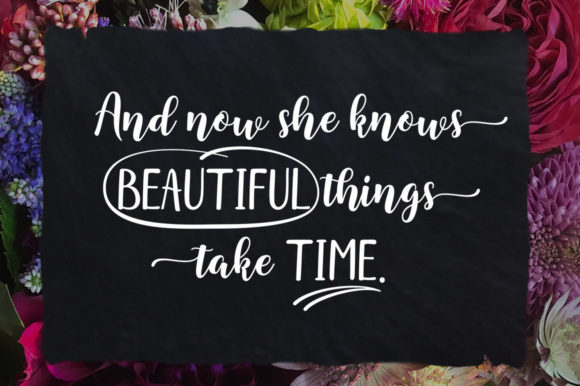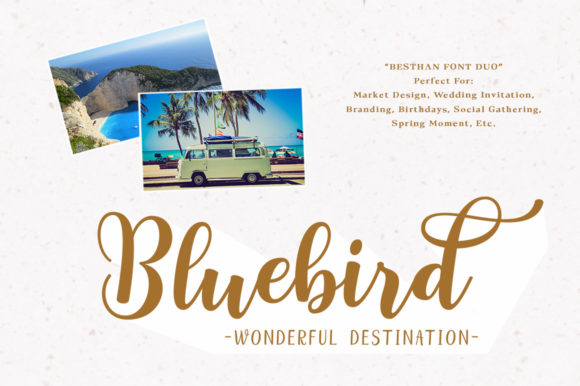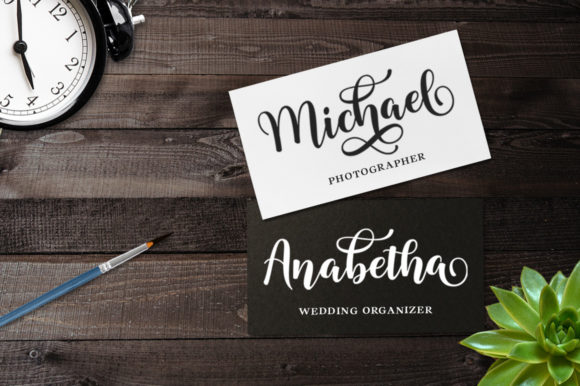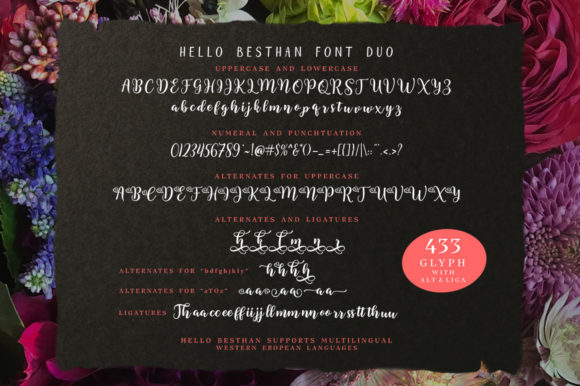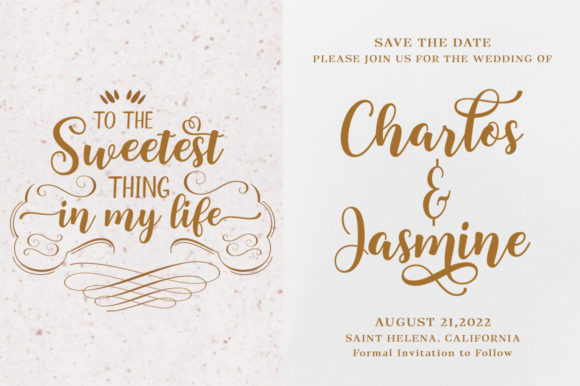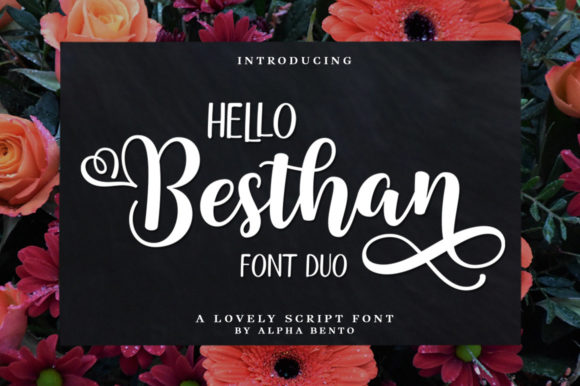
Discover the Besthan Font: Elevate Your Crafts with Chic and Cheery Typography
Are you a designer or crafter looking for the perfect font to add a touch of elegance and playfulness to your projects? Look no further than the Besthan Font! This delightful font duo is designed to complement each other perfectly, making them ideal for a wide range of creative applications. In this article, we’ll dive into the features and benefits of the Besthan Font, and explore how it can elevate your crafts to the next level.
A Perfect Pair: The Besthan Font Duo
The Besthan Font consists of two carefully crafted fonts that work in harmony to bring a chic and cheery touch to your designs. Whether used together or separately, these fonts are sure to impress. The duo’s versatility makes it perfect for various projects, from digital designs to handmade crafts, and everything in between.
One of the standout features of the Besthan Font is its PUA (Private Use Area) encoding. This means that you can easily access all glyphs and swashes, giving you complete creative control over your designs. With PUA encoding, you can effortlessly navigate the font’s extensive character set, including alternates, ligatures, and decorative elements.
The Besthan Font duo opens up a world of creative possibilities for designers and crafters. Use them to:
- Create stunning digital designs, such as social media graphics, blog headers, and email newsletters
- Add a personal touch to handmade crafts, like scrapbooking, card making, and journaling
- Develop eye-catching branding materials, including logos, business cards, and brochures
- Design beautiful wedding stationery, invitations, and decorations
Why Choose the Besthan Font?
So, what sets the Besthan Font apart from other font duos on the market? Here are just a few reasons why designers and crafters love this font:
- Unique and stylish: The Besthan Font duo boasts a distinctive, high-end look that’s sure to elevate your designs
- Highly versatile: Use the fonts separately or together to create a wide range of visual effects
- Easy to use: PUA encoding makes it simple to access and use the font’s extensive character set
- PUA encoded: Enjoy effortless access to glyphs, swashes, and other decorative elements
Tips for Getting the Most Out of the Besthan Font
To make the most of the Besthan Font, try these expert tips:
- Experiment with font combinations: Pair the Besthan Font duo with other fonts to create striking visual contrasts
- Play with swashes and glyphs: Use the font’s PUA-encoded features to add decorative flourishes to your designs
- Mix and match font sizes: Create visual interest by using different font sizes and styles
| Font Name | Besthan Font |
| Author | Alphabento |
In conclusion, the Besthan Font duo is an exceptional choice for designers and crafters seeking a chic and cheery typography solution. With its PUA encoding, versatile font styles, and endless creative possibilities, this font duo is sure to become a staple in your design toolkit. Whether you’re working on digital designs, handmade crafts, or branding materials, the Besthan Font is the perfect choice for adding a touch of elegance and playfulness to your projects.